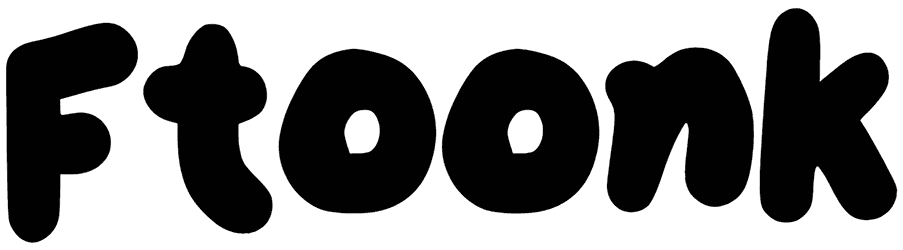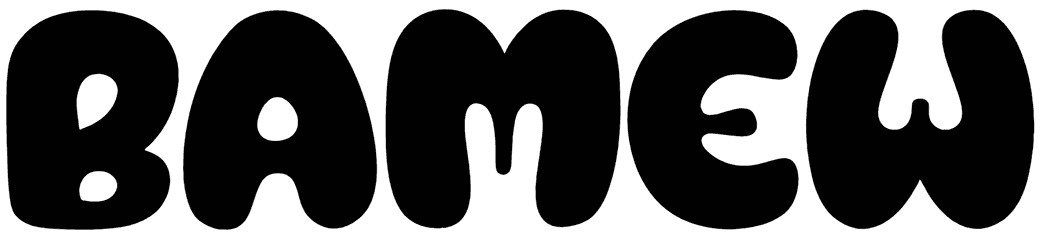
Oh My Baby Font
Select this cartoon font to add a fun, playful, and exciting feel for a cute, bold, and comical typography! Oh My Baby is available in two styles, giving you the chance to reach the unique design you wish for. The characters are rounded and each has a specific feature.
Letterforms included for Oh My Baby are mixed case alphabets, numbers, and punctuations plus some awesome shapes that will look enjoyable in similar places too, books, comics, games, websites, and cartoons.